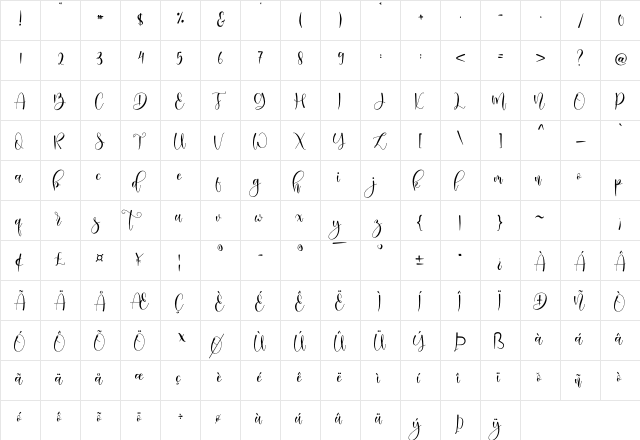
Haisley Regular
| Designer | Nissa Nana |
Design Context for Haisley Typeface
Haisley is a composed and adaptable typeface that performs quietly and consistently across a wide range of design contexts.